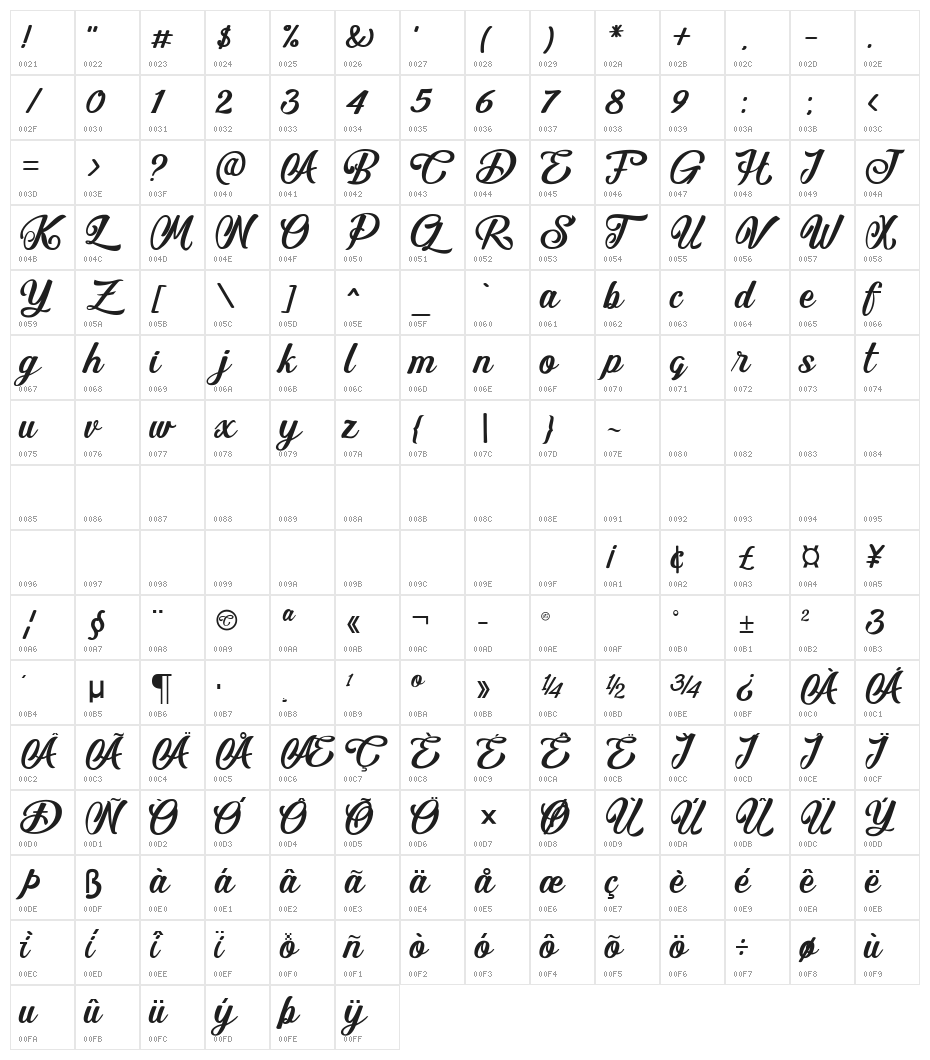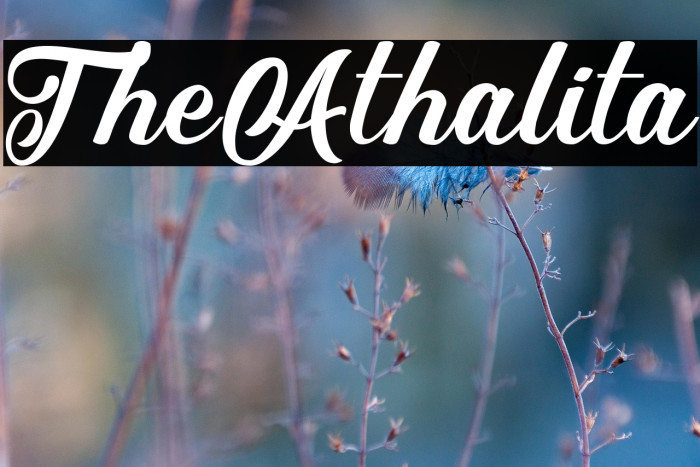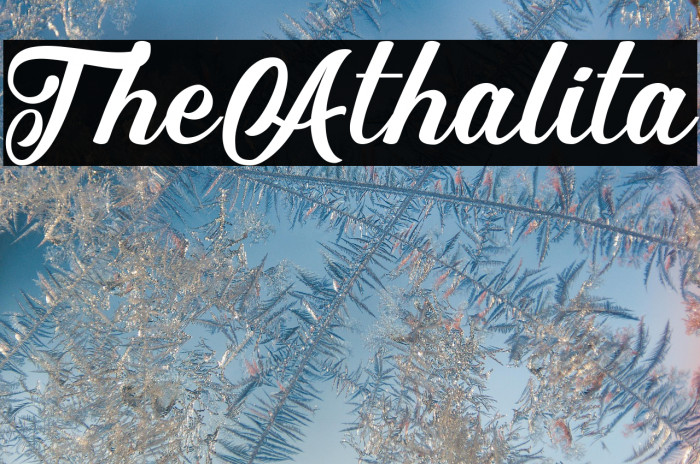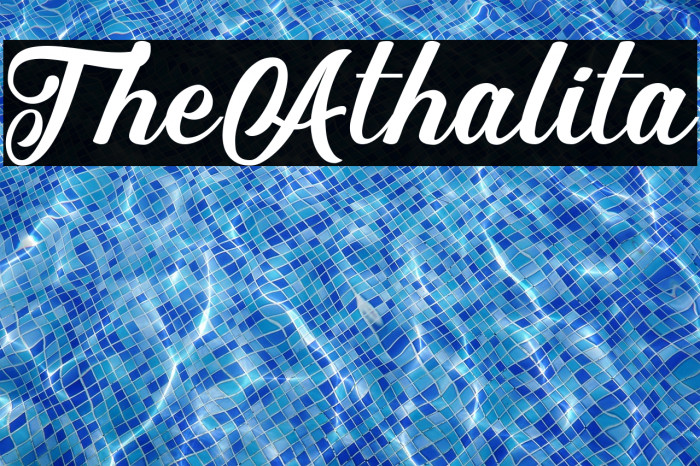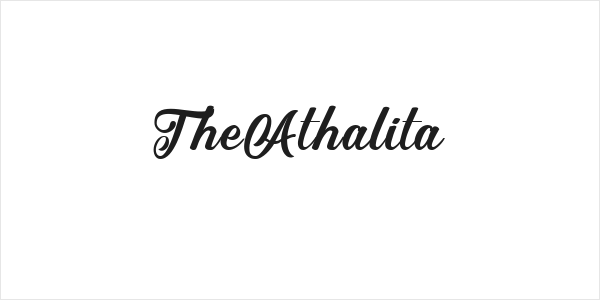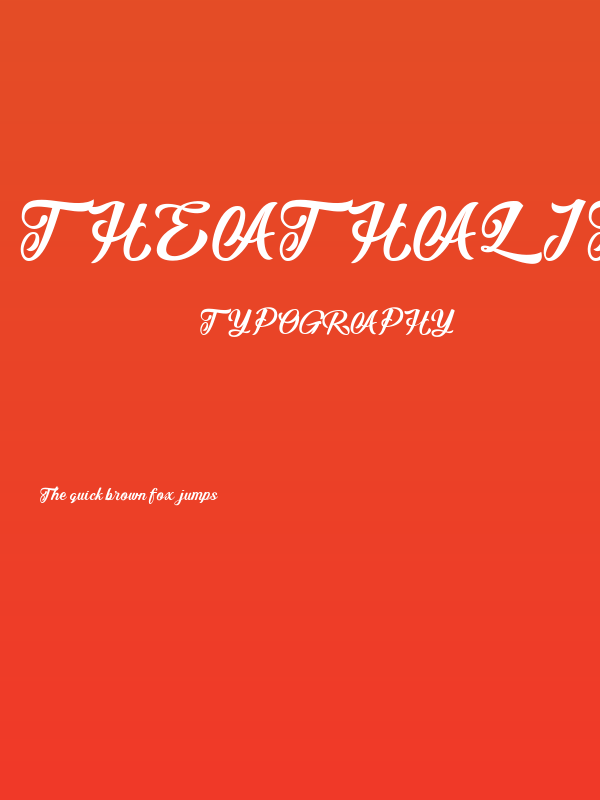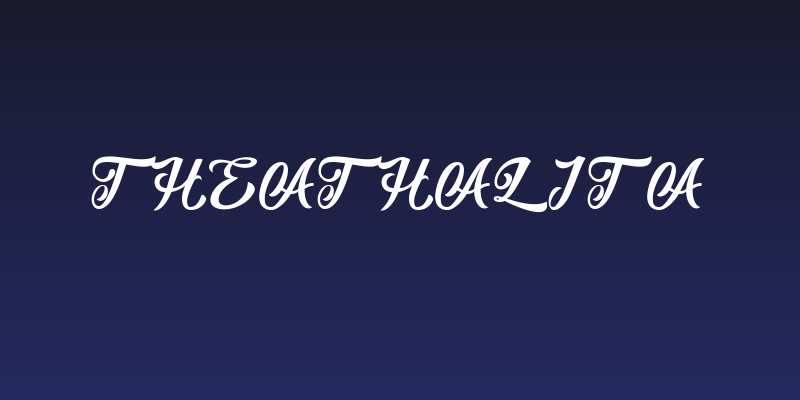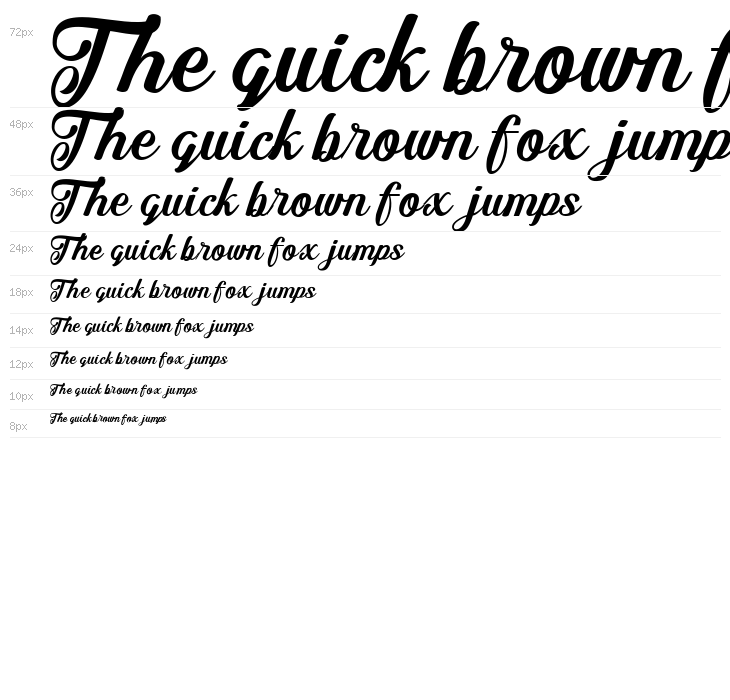
TheAthalita Font
TheAthalita Description
This elegant script font features a flowing, cursive style with a classic and sophisticated appearance. The uppercase letters are adorned with subtle flourishes, adding a touch of grace and refinement. The lowercase letters maintain a smooth, connected flow, enhancing readability while preserving the decorative nature of the font. The numerals are consistent with the overall style, offering a harmonious blend with the alphabet. Special characters are designed with the same attention to detail, ensuring a cohesive look across all elements. This font exudes a sense of elegance and is perfect for projects that require a touch of class and sophistication.
| Proposed Projects | Ideal for wedding invitations, elegant branding, high-end product packaging, and sophisticated event posters. |